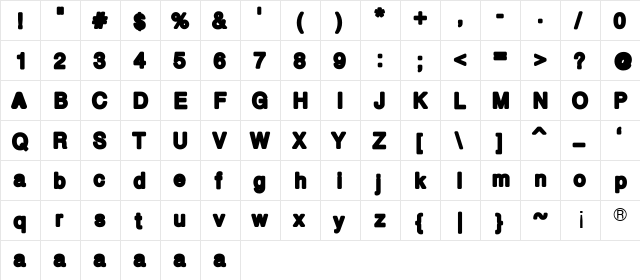
boldbold Regular Font Preview
boldbold Regular
boldbold Regular Font Details
Design Context for boldbold Typeface
boldbold is a composed and adaptable typeface that performs quietly and consistently across a wide range of design contexts. The heavy weight commands attention and anchors typographic hierarchies.